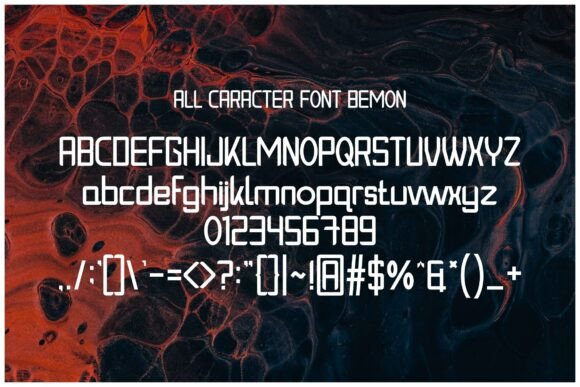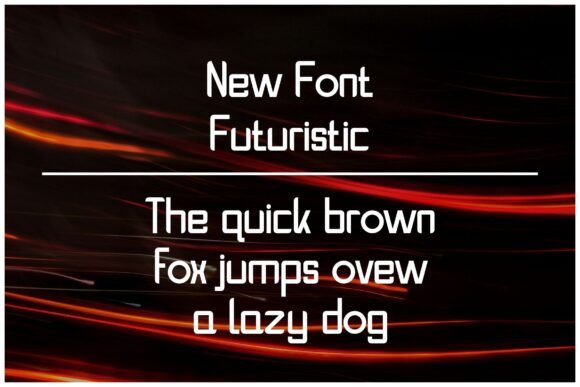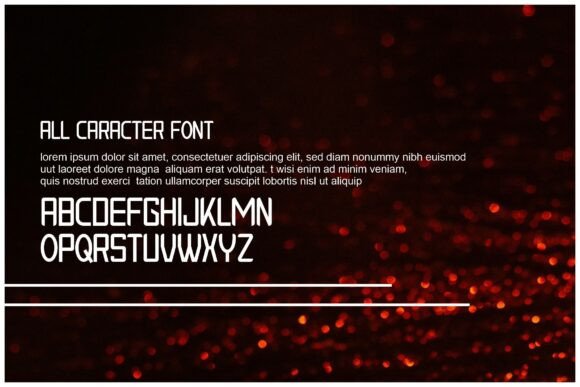
Bemon Font
Bemo is a sans serif font with a charming touch of style. No matter the topic, this font will be an incredible asset to your fonts' library, as it has the potential to elevate any creation.